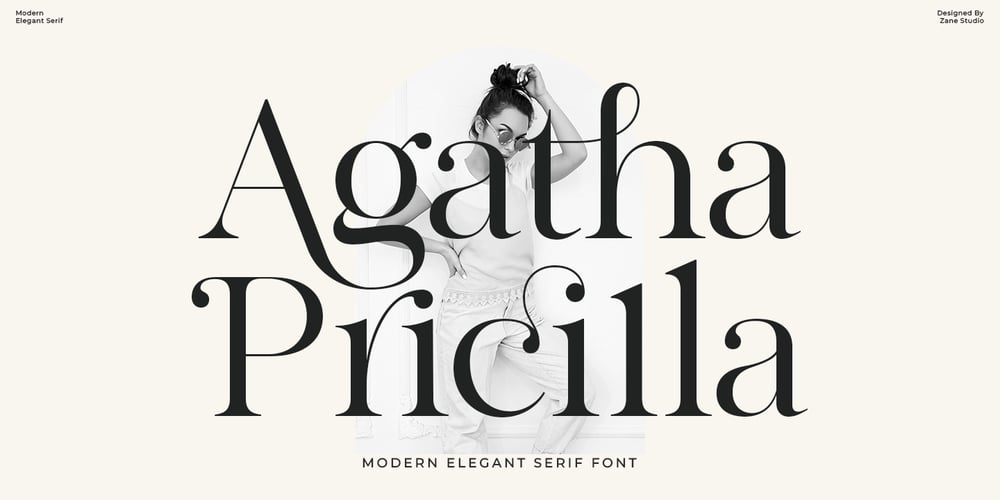
Agatha Pricilla Font Family was designed by Mur Zani and published by Zane Studio. Agatha Pricilla contains 1 styles and family package options. Introducing the Agatha Pricilla Font, a modern, feminine, beautiful and classy collection of characters, that gives a unique look to all your logo or brand design needs. The Agatha Pricilla font is a mix of beautiful and classy nuances, that has a wide range of uses, but is mainly intended for logos, perfumes, fashion magazines or book covers to display titles, brands, product packaging and invitations. Not only will you find many decorative characters, but also a number of unique alternate characters that will make you really love this font. Agatha Pricilla also includes a complete set of: Uppercase and lowercaseAlternatives and ligaturesMultilingual charactersNumbersPunctuation Hope you enjoy our font and if you have any questions, feel free to message me & I will be happy to help 🙂